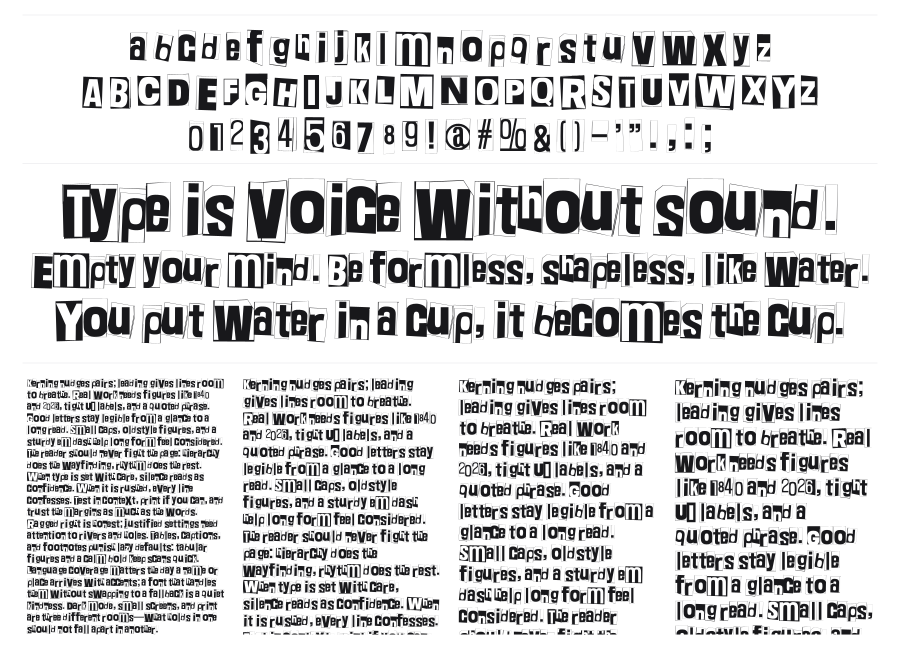
Two Down, One to Go
Two Down, One to Go is a ransom-note display font by junkohanhero where every character arrives clipped into its own slightly skewed rectangular frame. The mix of black-filled and outlined boxes, varying rotations, and mixed sizing creates the unmistakable look of a handmade collage or underground zine. It brings raw, graphic energy to posters, album art, and anything that needs to feel deliberately off-kilter.